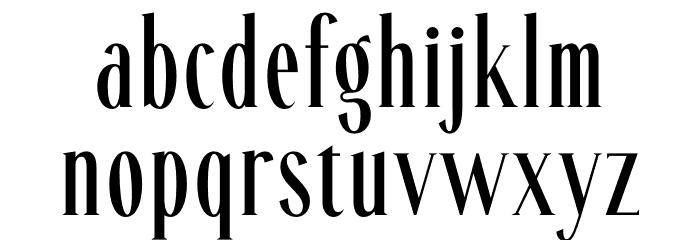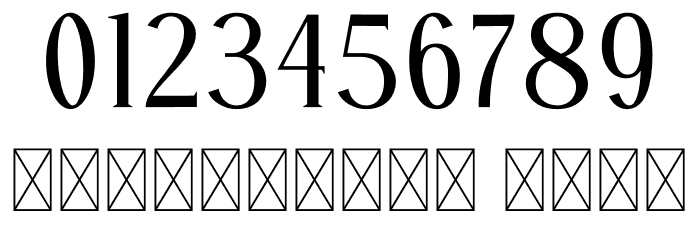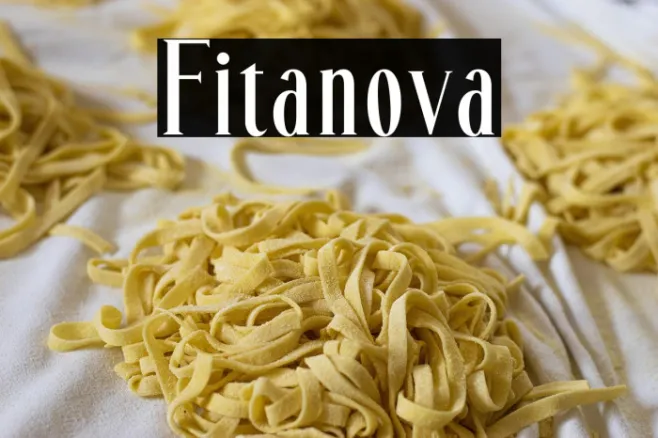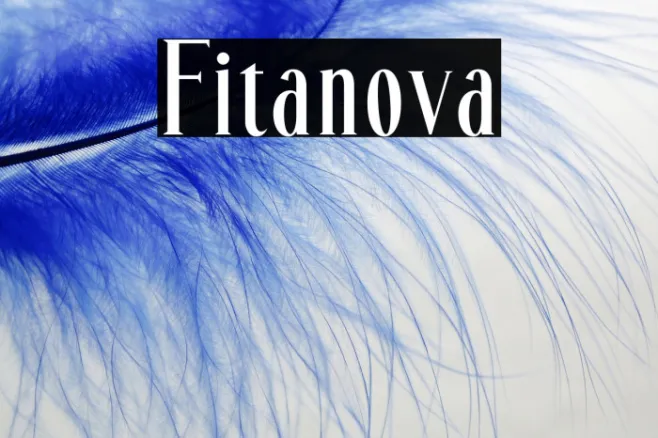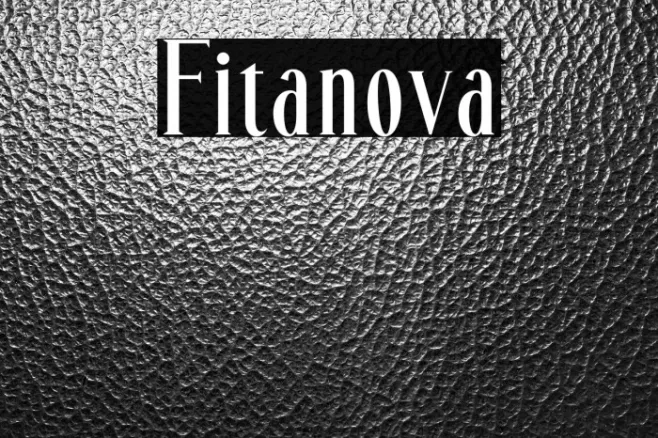
Fitanova Font
This font features a classic serif style with a modern twist, characterized by its tall, elegant letterforms and high contrast between thick and thin strokes. The uppercase letters are particularly elongated, giving a sense of sophistication and formality. The lowercase letters maintain a consistent style with slightly rounded edges, adding a touch of softness to the overall appearance. Numerals are clear and distinct, ensuring readability. The font's design is both timeless and versatile, suitable for a variety of applications.
A modern serif font with high contrast and elongated letterforms.
- Proposed Projects: Ideal for editorial design, book covers, luxury branding, and elegant invitations.